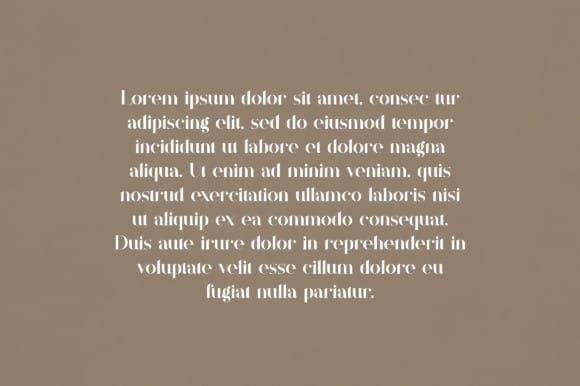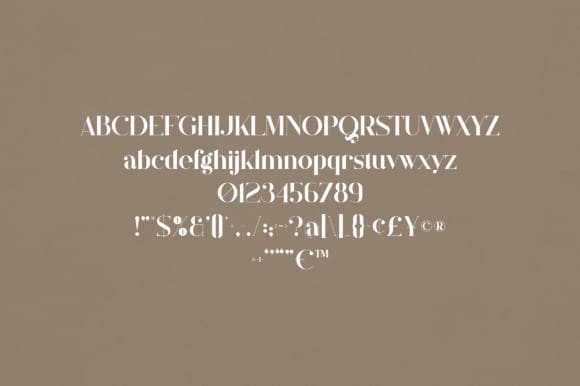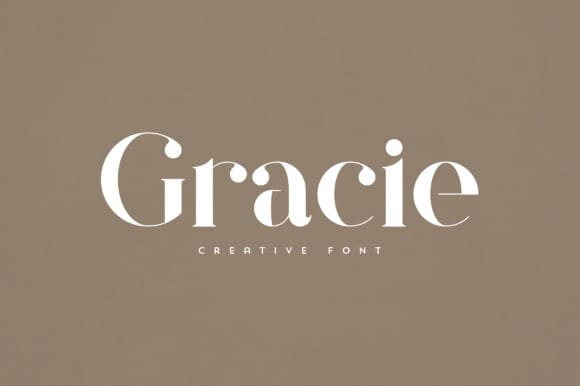
Gracie Serif Font
Gracie Serif Font, is an elegant and versatile serif font that will make your typography truly unique! It will enchant every logo, branding, headline, or plain text!